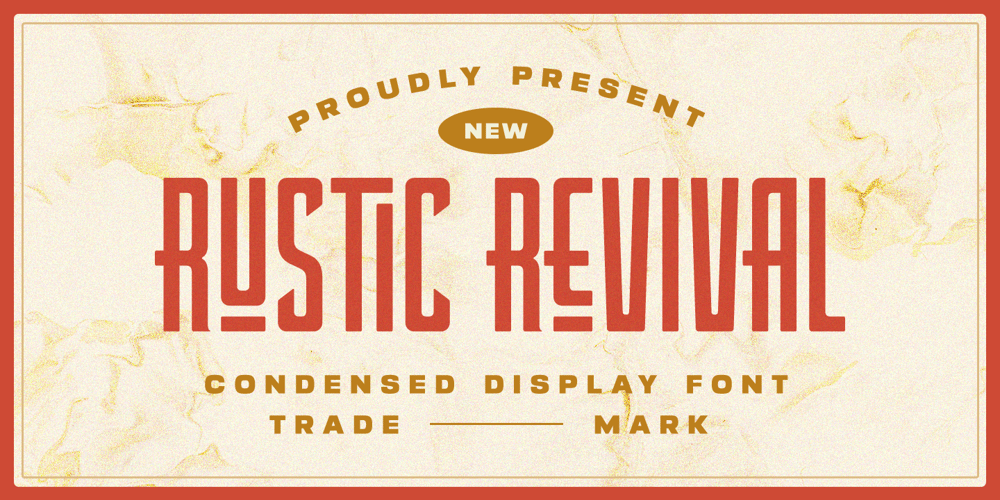
Rustic Revival
Rustic Revival font
Rustic Revival Font Family was designed by Hendry Juanda and published by Letterhend. Rustic Revival contains 1 styles and family package options. Stand out from the crowd with the Rustic Revival font’s ligature option. These unique character combinations add visual interest and enhance the flow of your text, giving it a casual and classic, perfect for eye-catching posters, attention-grabbing banners, and impactful headlines, Rustic Revival helps your designs stand out from the crowd and leave a lasting impression.Features : Uppercase & lowercase Numbers and punctuation Alternates & Ligatures Multilingual PUA encoded We highly recommend using a program that supports OpenType features and Glyphs panels like many of Adobe apps and Corel Draw, so you can see and access all Glyph variations.